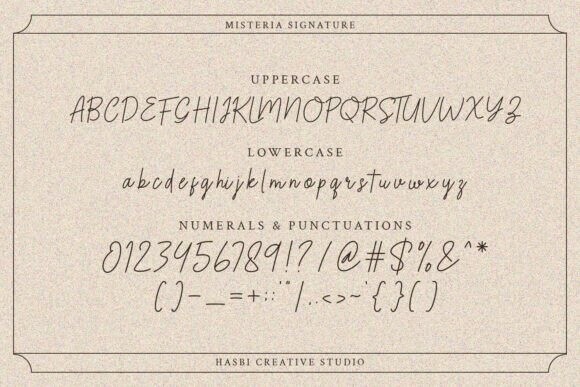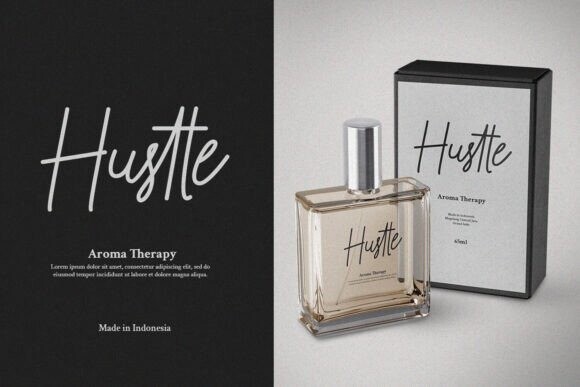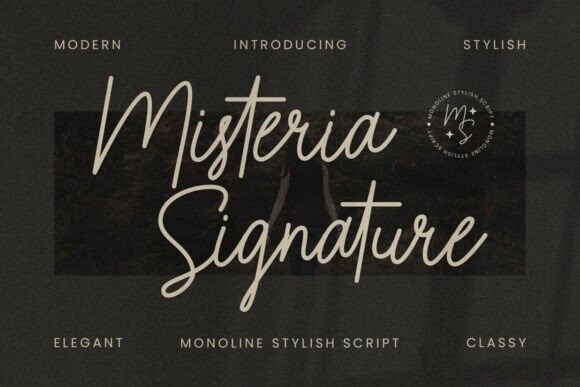
Misteria Signature Font
Misteria Signature Font, a captivating font that brings the charm and elegance of handwritten calligraphy to your digital creations. With its flowing strokes, graceful curves, and authentic handwritten style, Misteria Signature adds a touch of personalization and sophistication to any project.